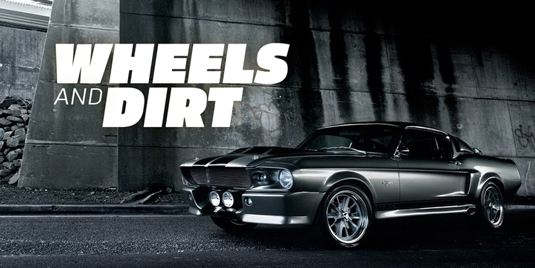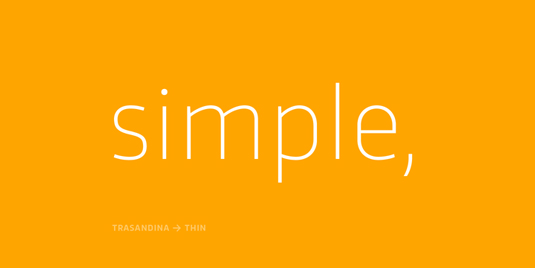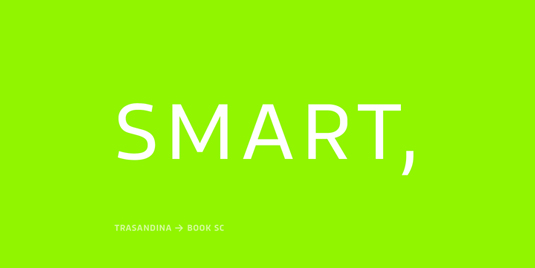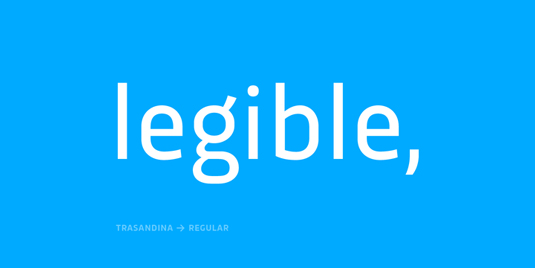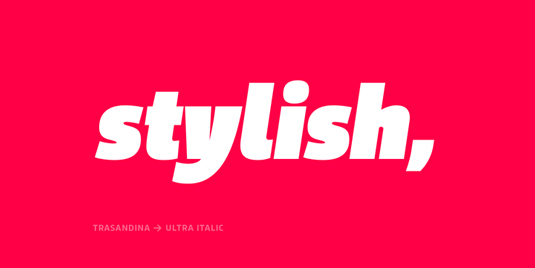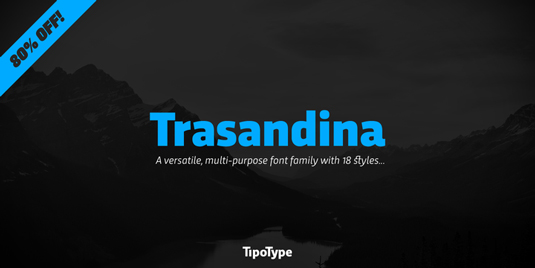
Font of the day: Trasandina
Each day of the week we showcase one of our favourite fonts – today it's Transandina by Fernando Díaz.
Trasandina by Fernando Díaz
Fernando Diaz is the designer behind today's typeface Trasandina. Available from MyFonts, it's described as being a 'modern, versatile workhorse typeface with a special personality, given by the mix of humanist and geometric models'. Specially designed for the web, Trasandina works in small and large sizes on different types of screen resolutions.